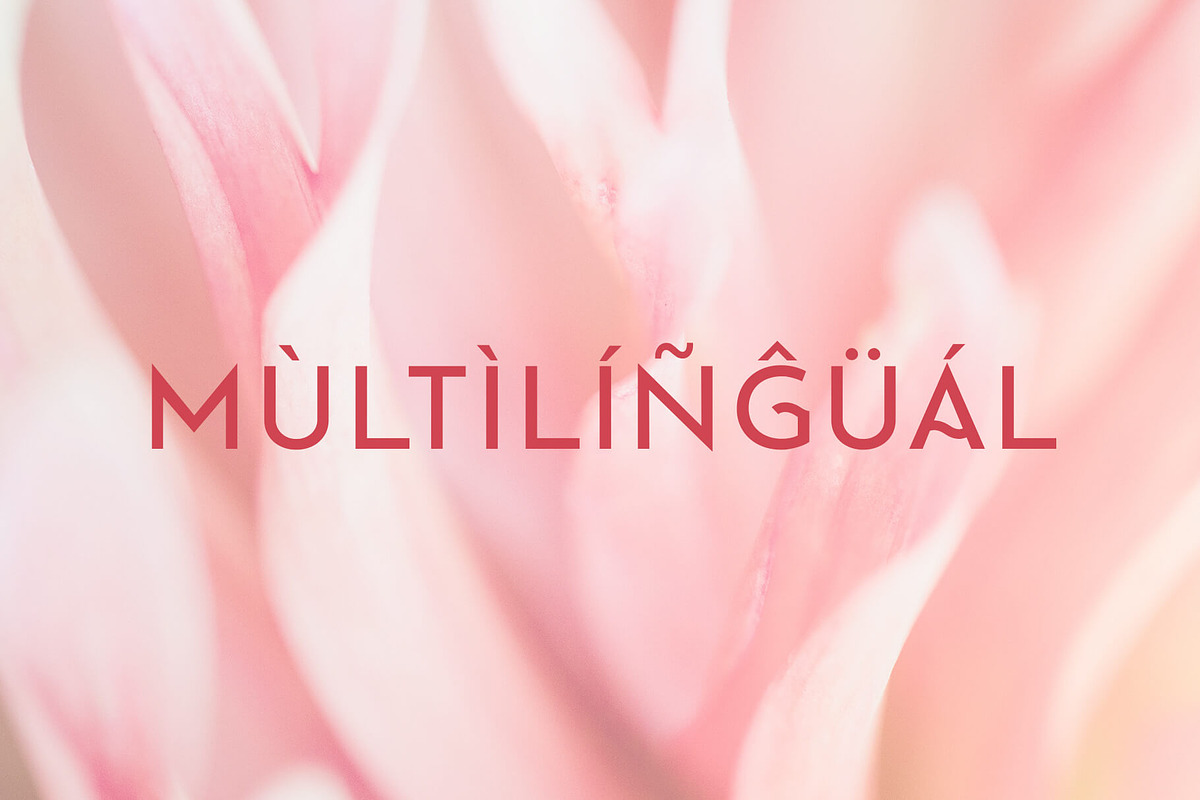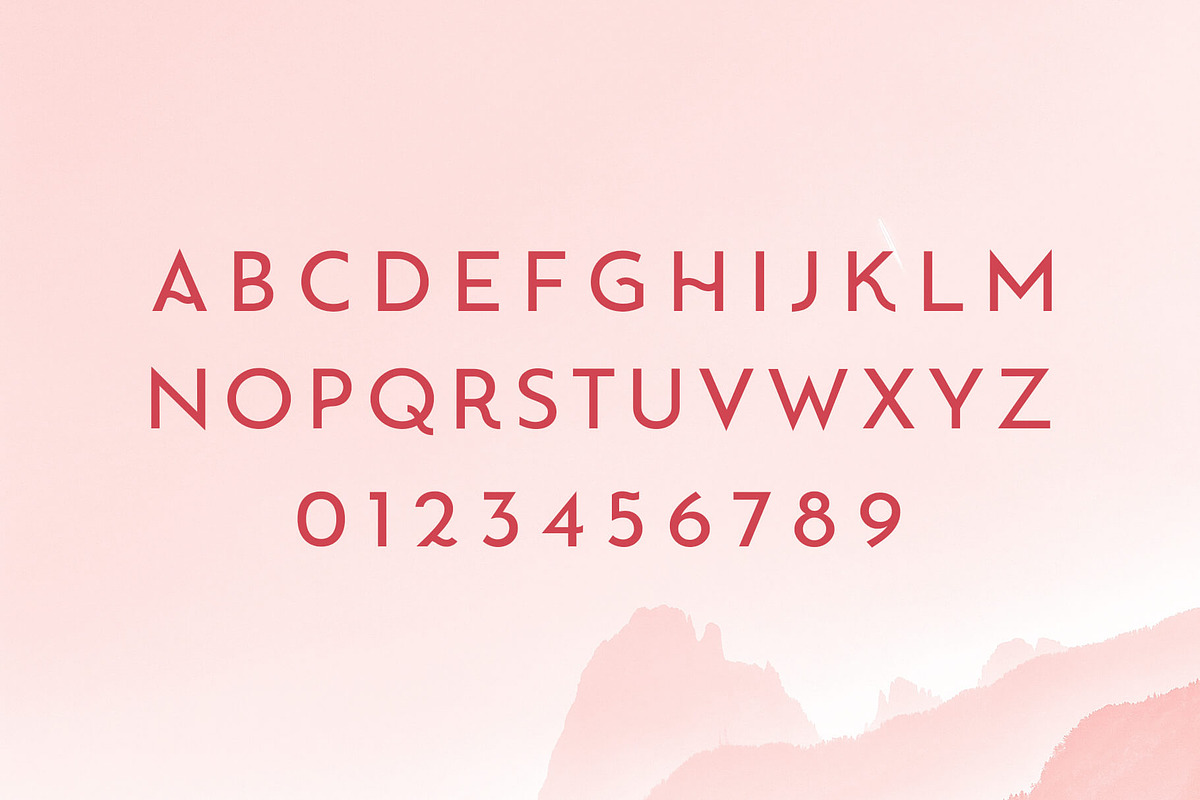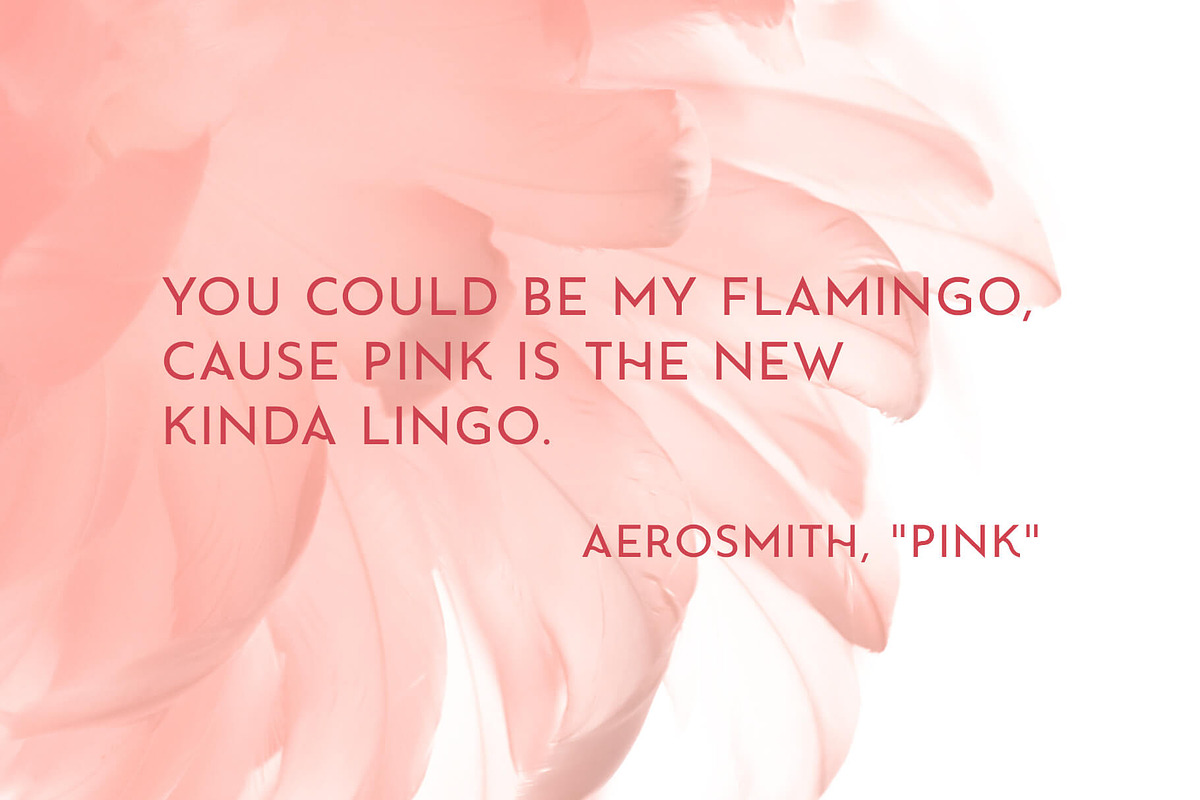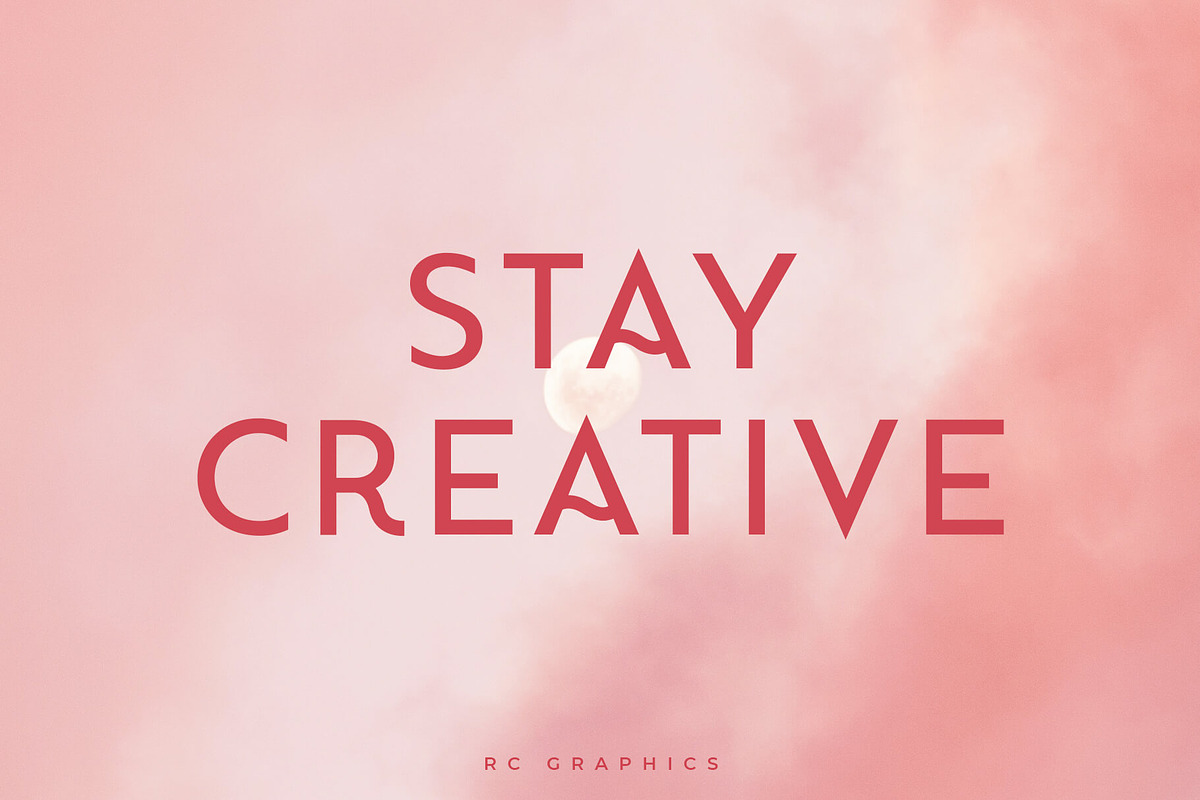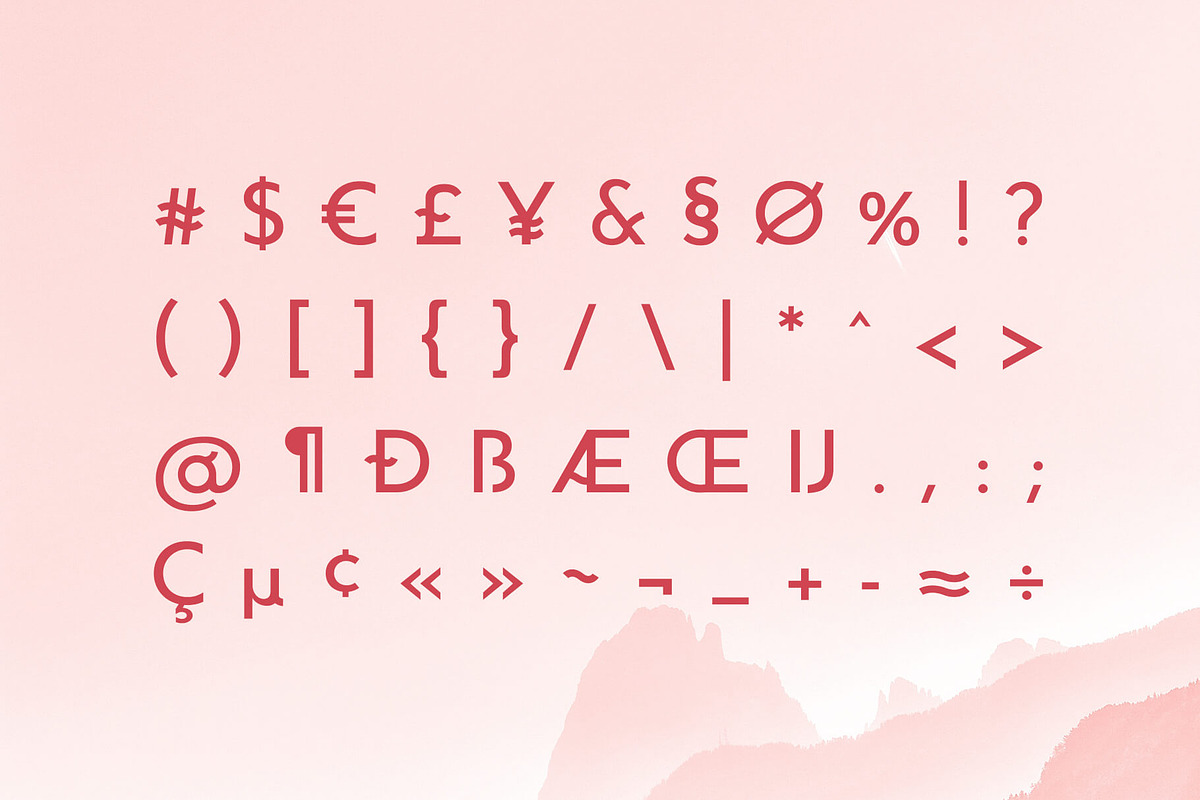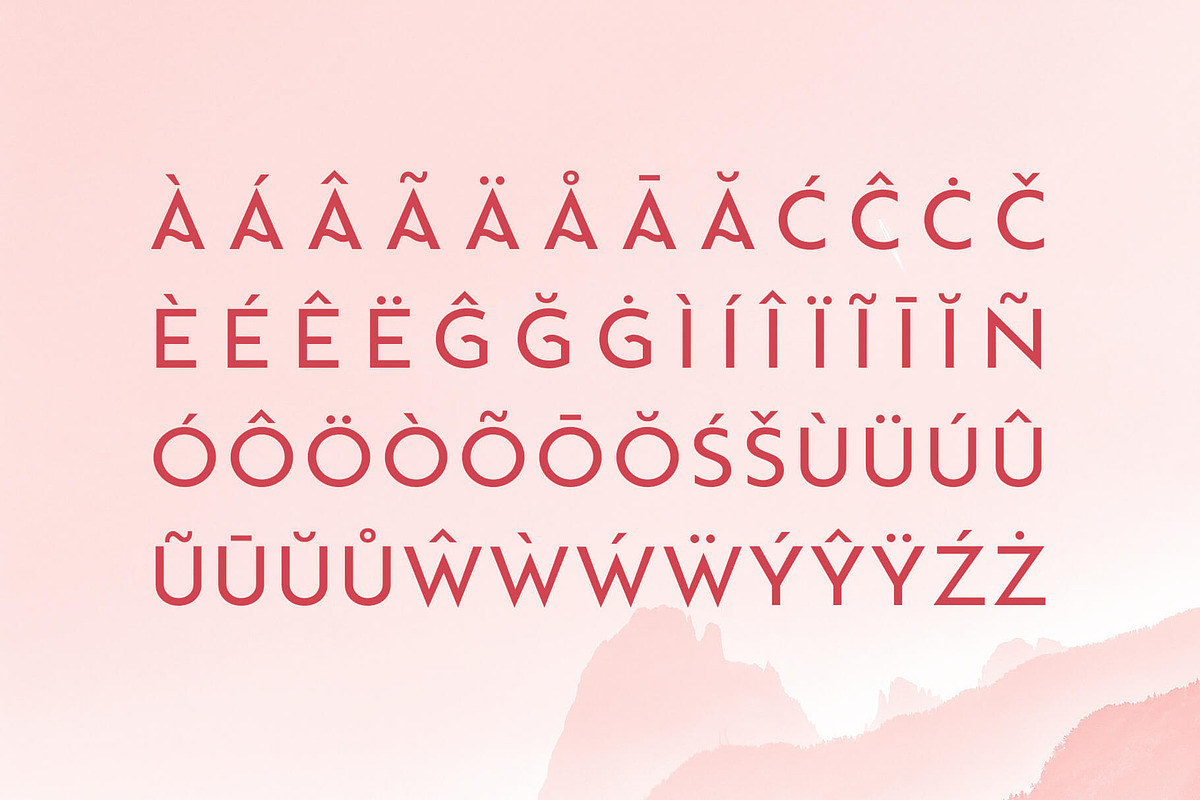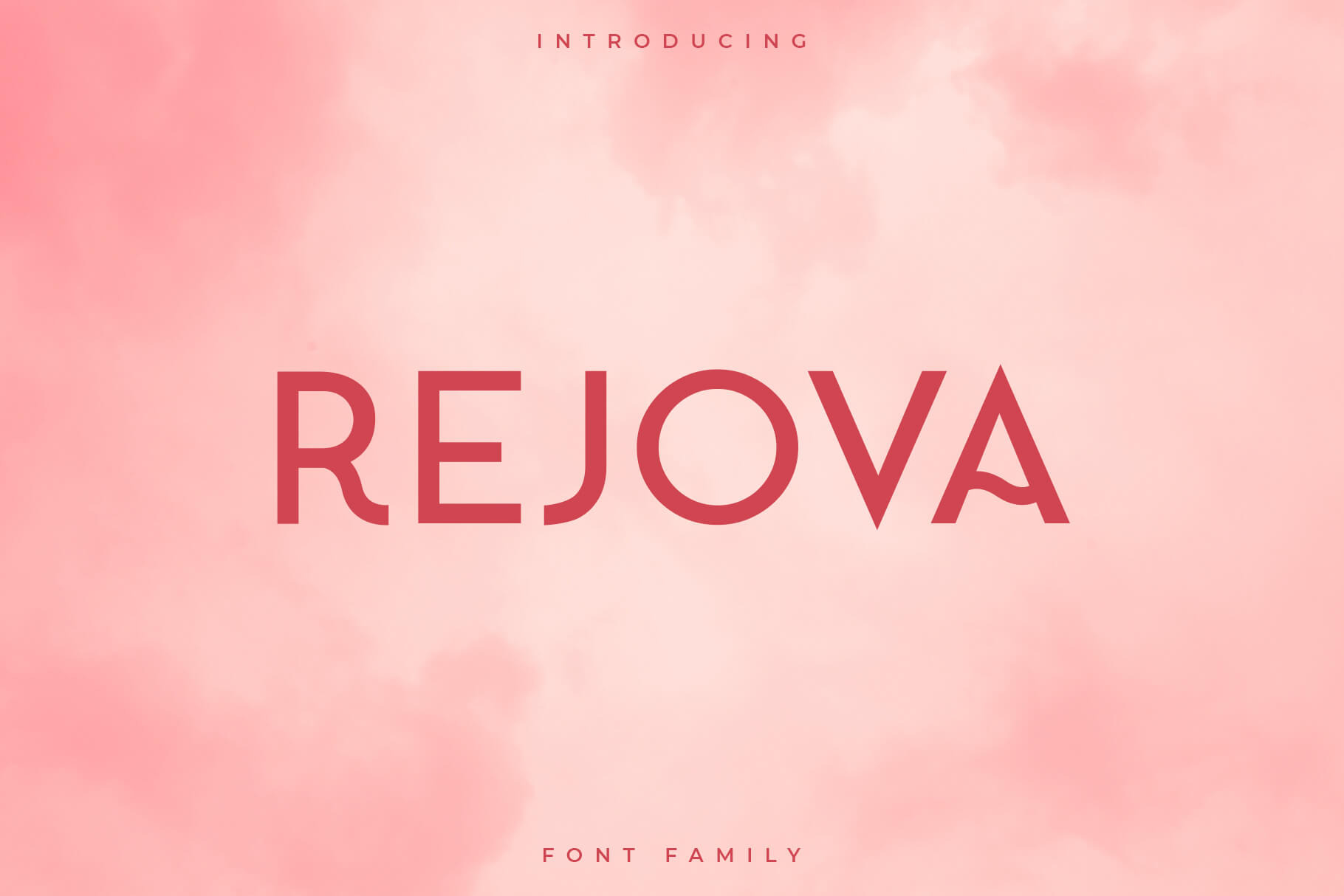
Rejova Font Family – Sans Serif
Rejova is an elegant, timeless, and stunning all caps sans serif font that looks beautiful in layouts, headers, web, and many other contexts! Rejova is perfect for magazine layouts, invitations or any other project you’re working on!
- Uppercase letters
- Multilingual (Foreign language characters)